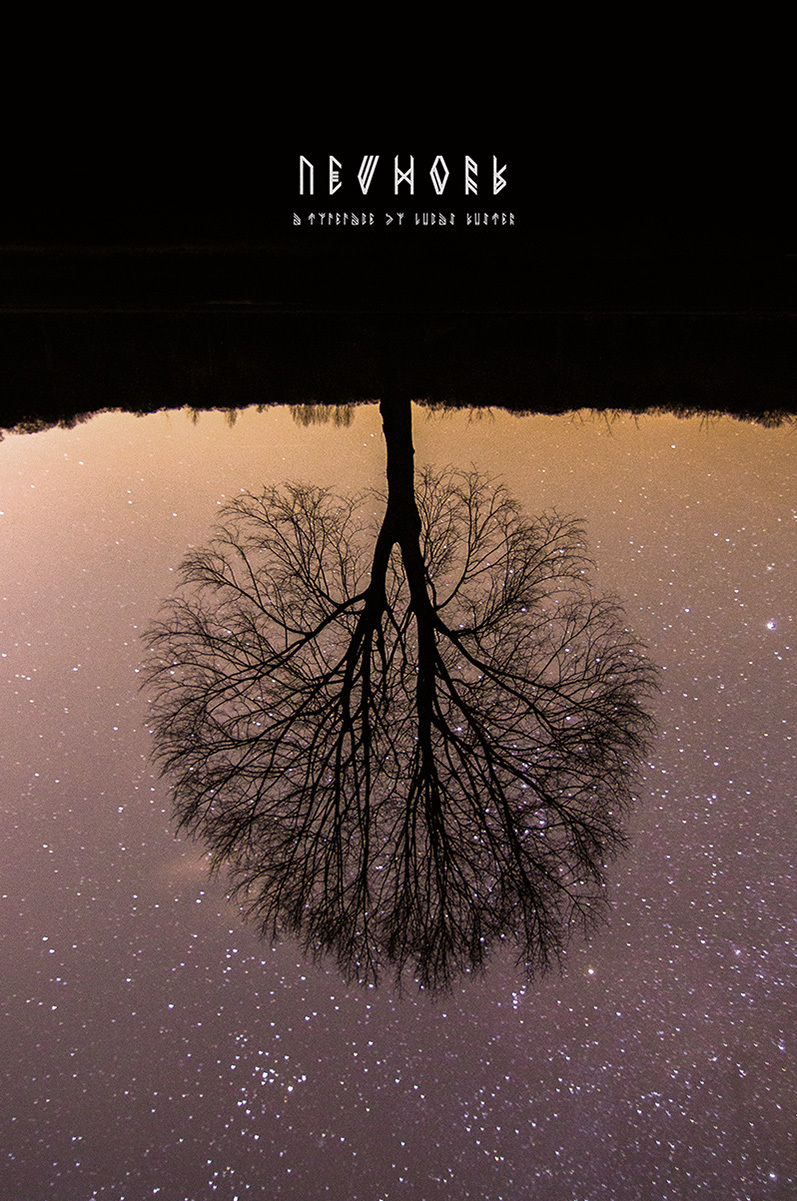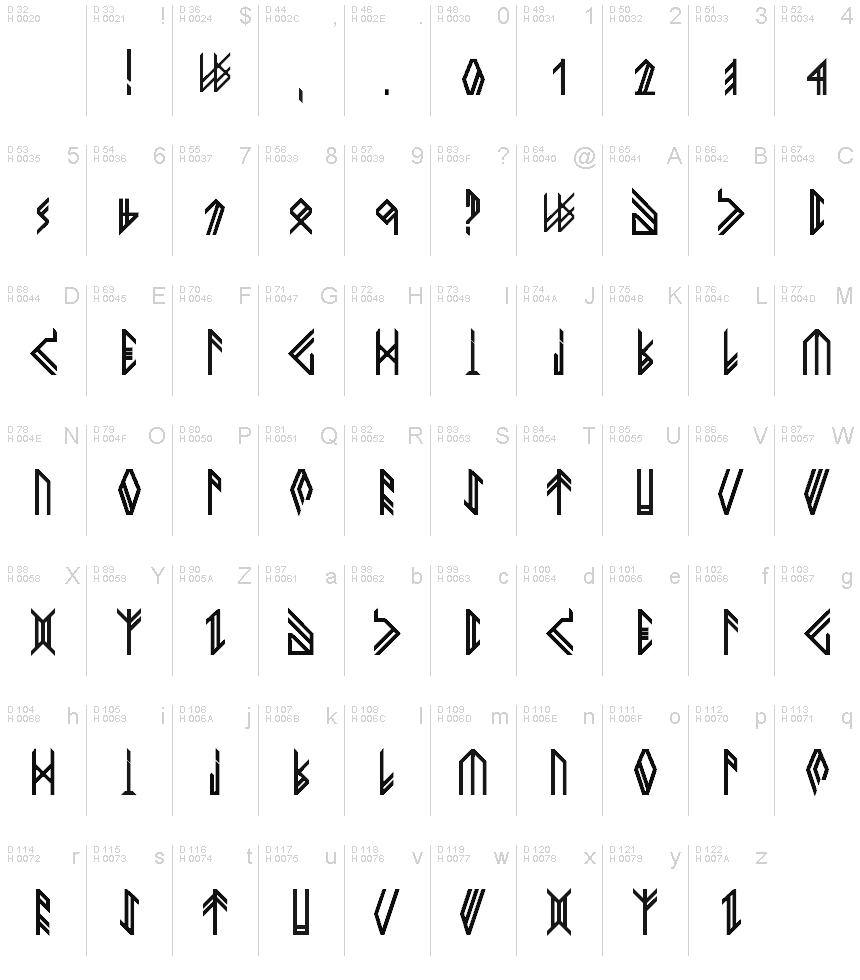
NEWHORKBold
Newhork Bold is a captivating display font that draws inspiration from the rich cultural heritage of Scandinavia. Designed by Lucas Kuster, this condensed typeface effortlessly blends the rugged aesthetic of ancient runes with a modern, linear sensibility.
The striking angular forms and intricate ligatures evoke the harsh beauty of the Nordic landscape, while the balanced proportions and clean lines lend it a sophisticated elegance. Newhork Bold is a versatile choice, well-suited for bold headings, impactful branding, and visually striking editorial layouts.
Its unique character and bold presence make it an excellent candidate for a wide range of design applications, from editorial to packaging and beyond.
Lucas Kuster
NEWHORK
Bold